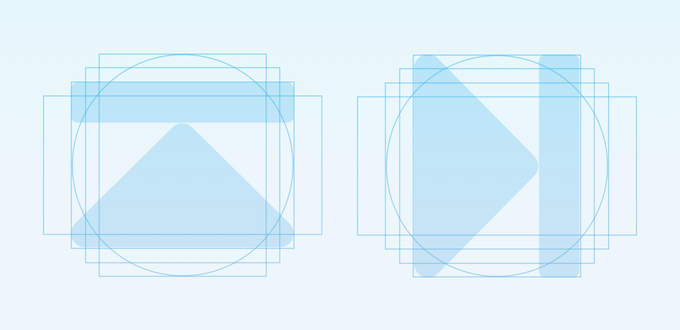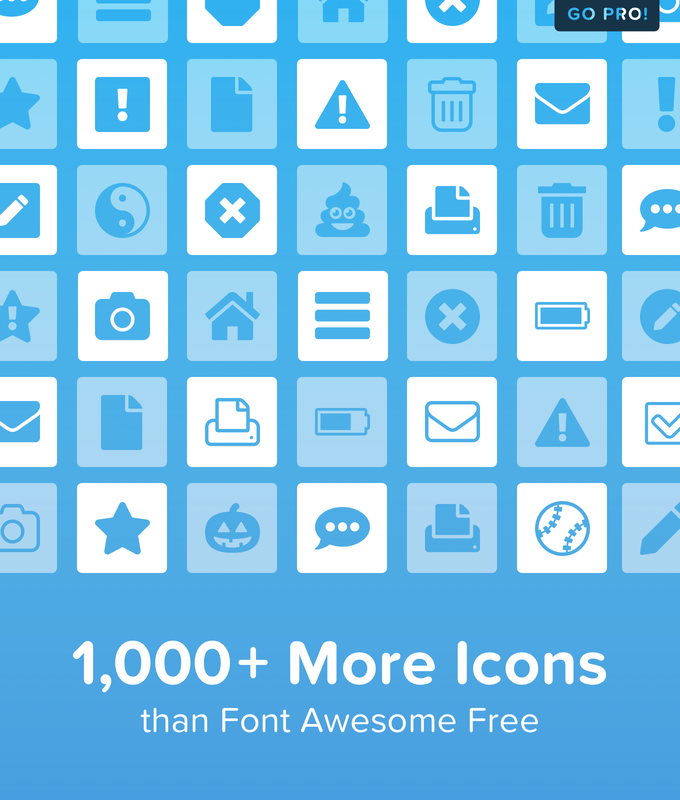
Hey folks! We just launched this today. Happy to answer any questions you might have!
The internet's most popular icon set remade from scratch. Looks insanely great already and this is just the beginning. Very, very nice.
Happy to back these great font, which we use in @phabricator. Any plans or path forward for Open Source projects to use Font Awesome 5 Pro? We backed the Kickstarter regardless because we love the work!